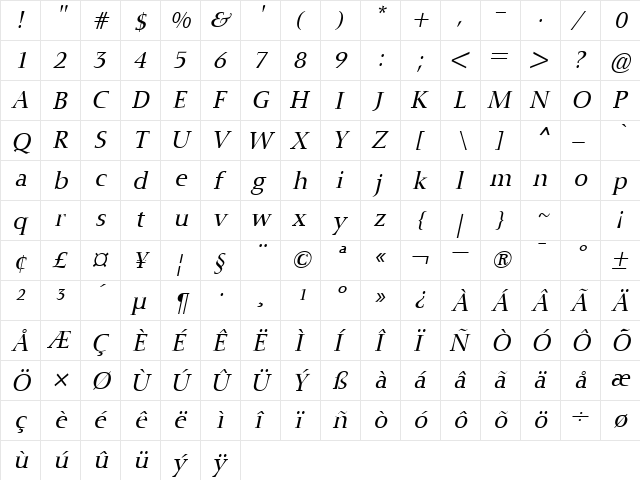
Ottawa Oblique Font Preview
Ottawa Oblique
Design Context for Ottawa Typeface
Ottawa is a composed and adaptable typeface that performs quietly and consistently across a wide range of design contexts. The dynamic lean of this cut emphasises speed and emphasis in any layout.